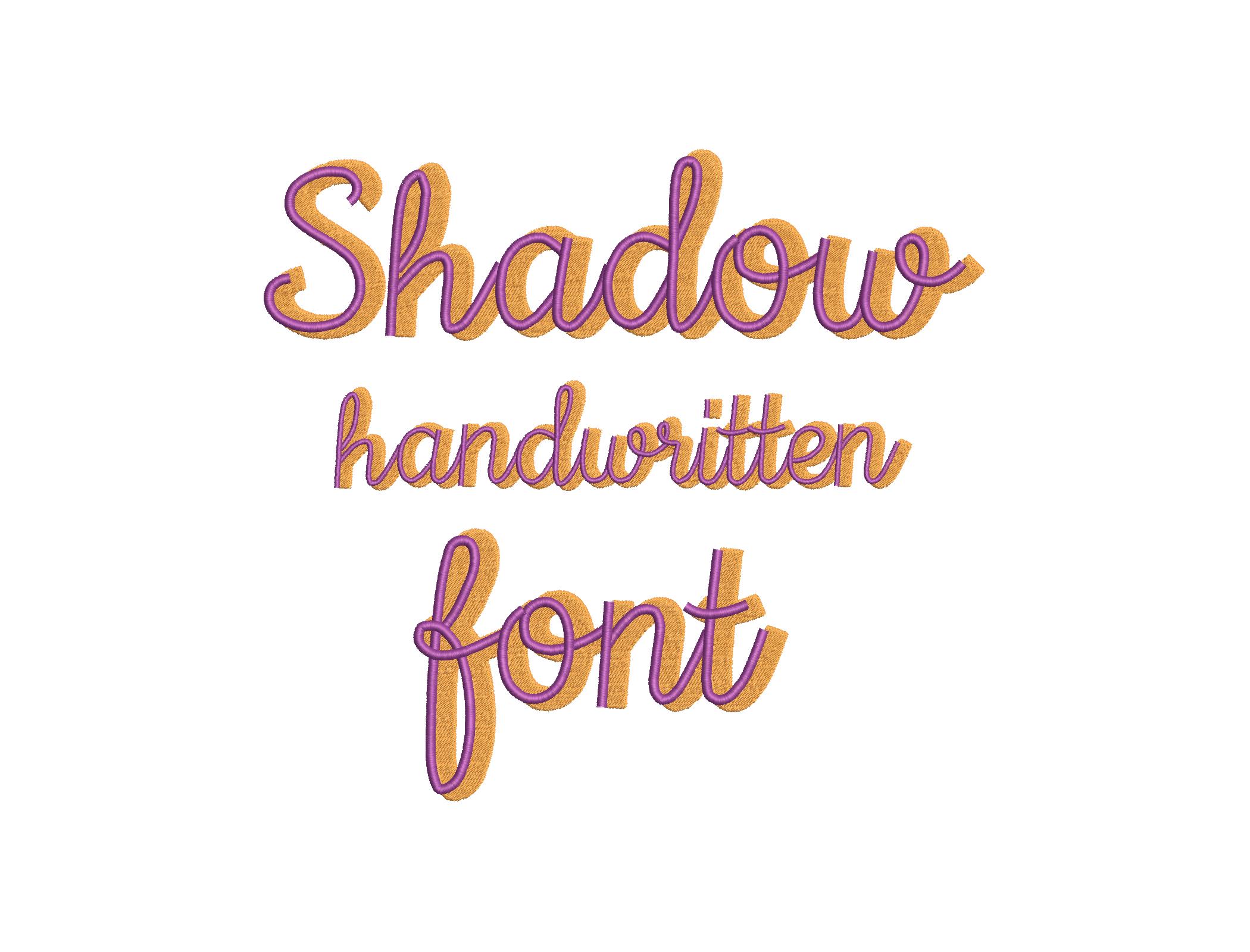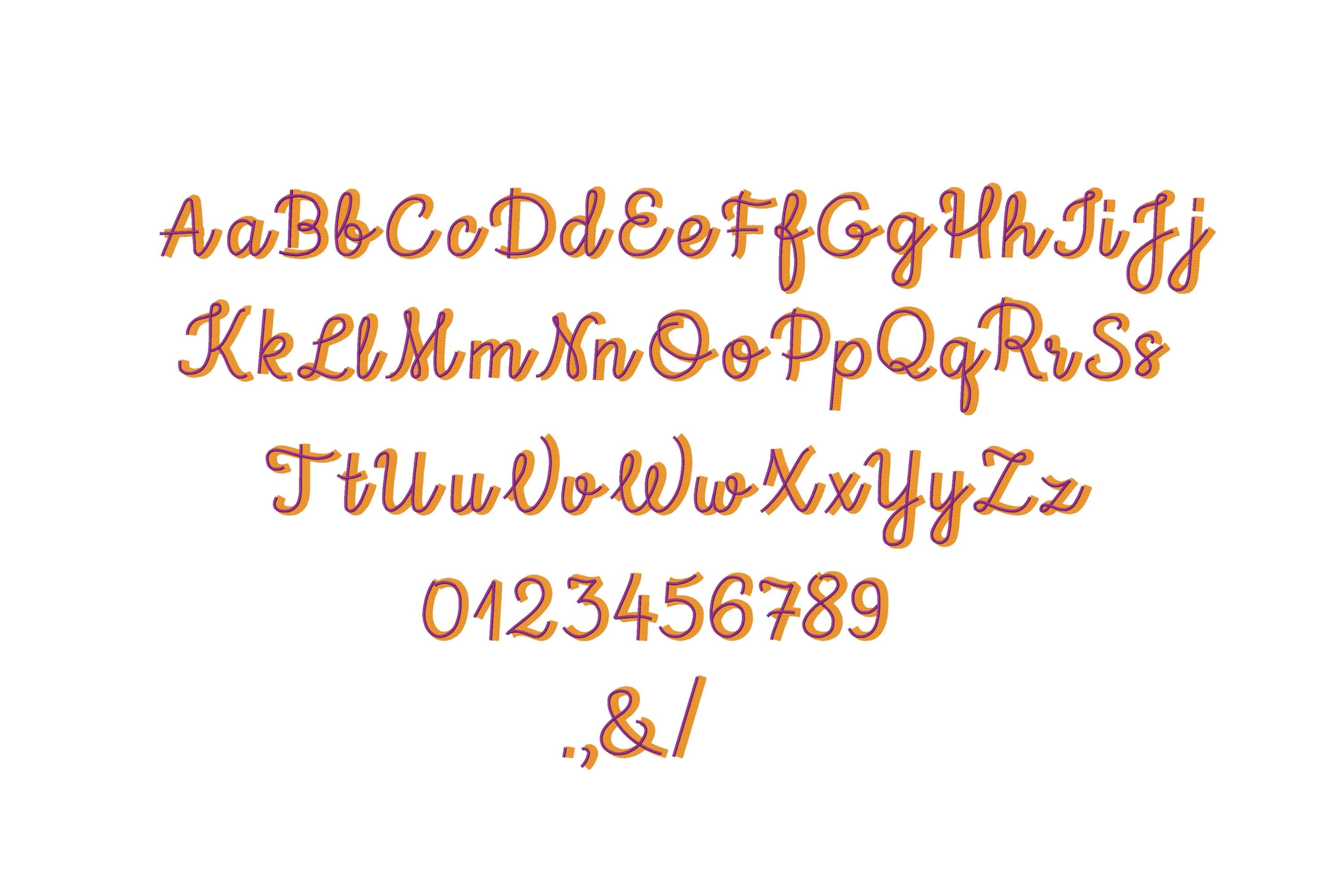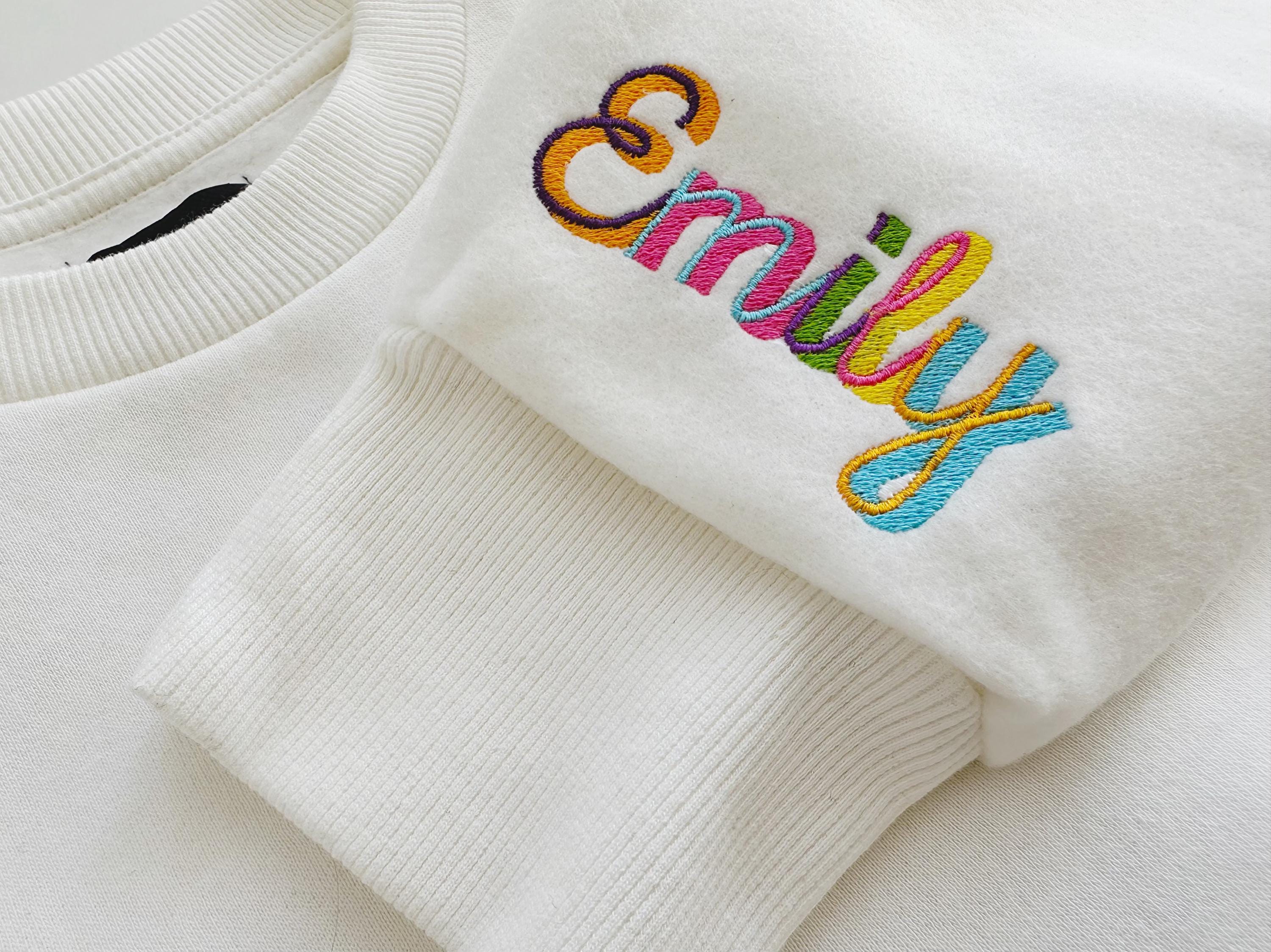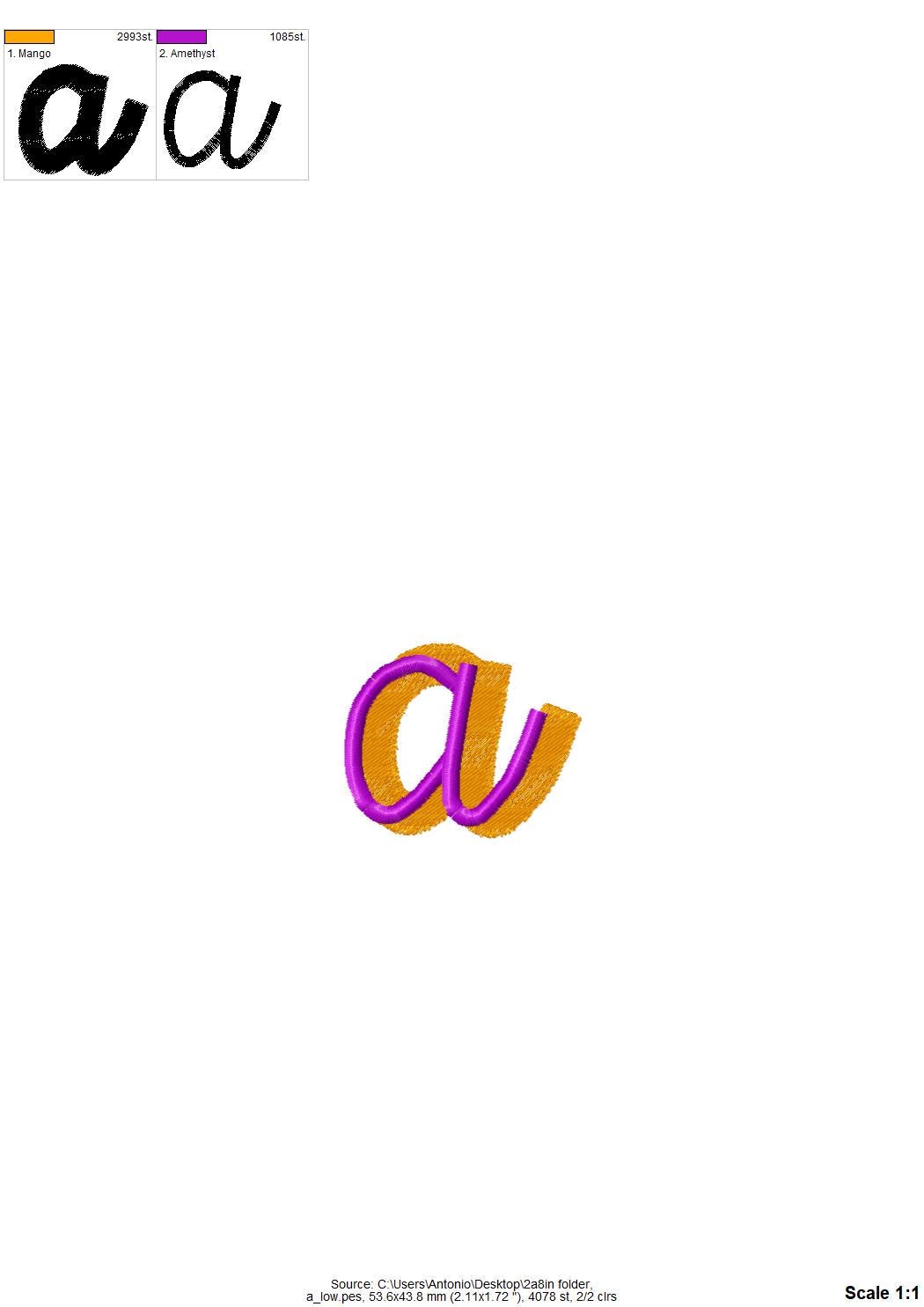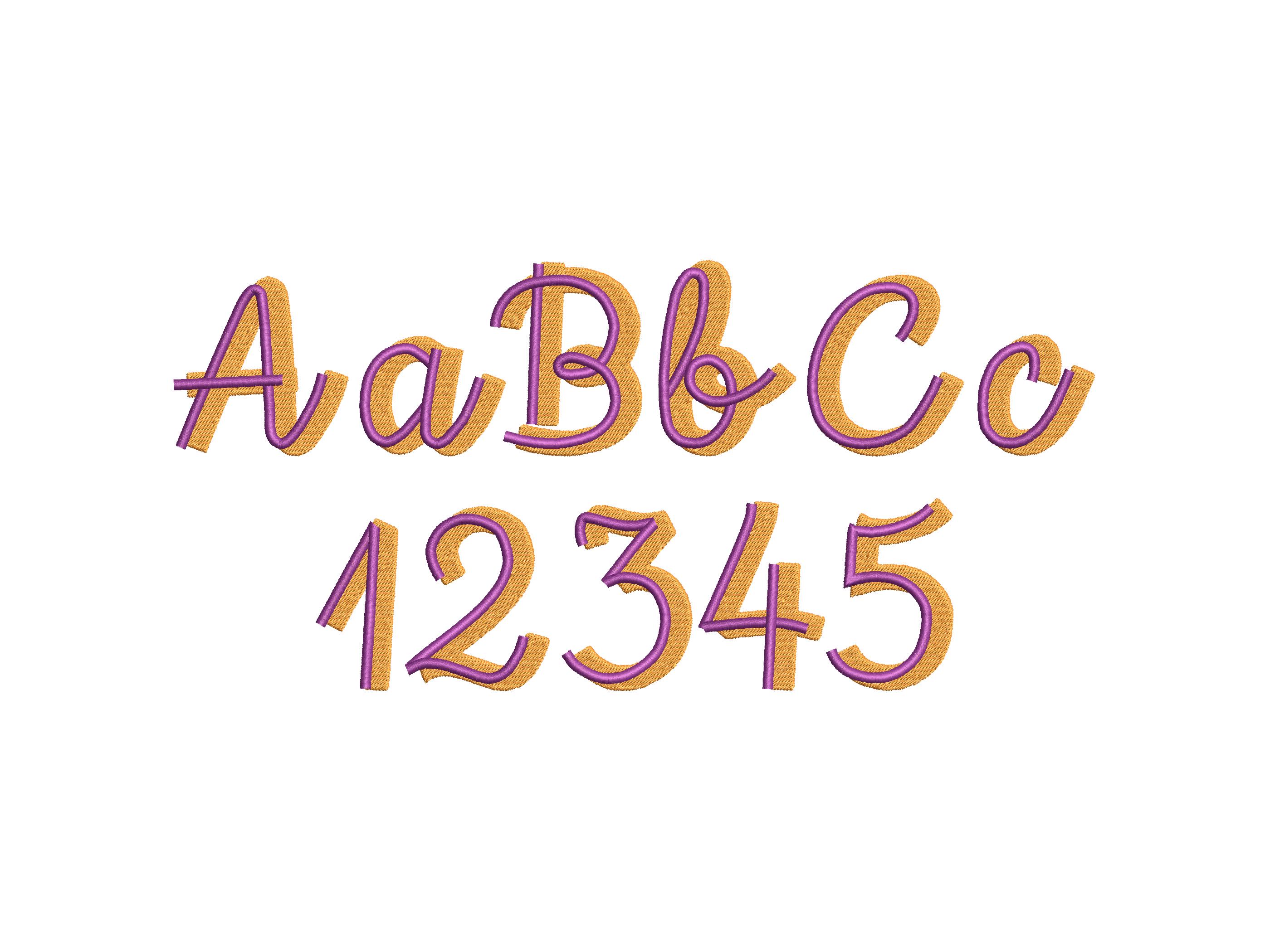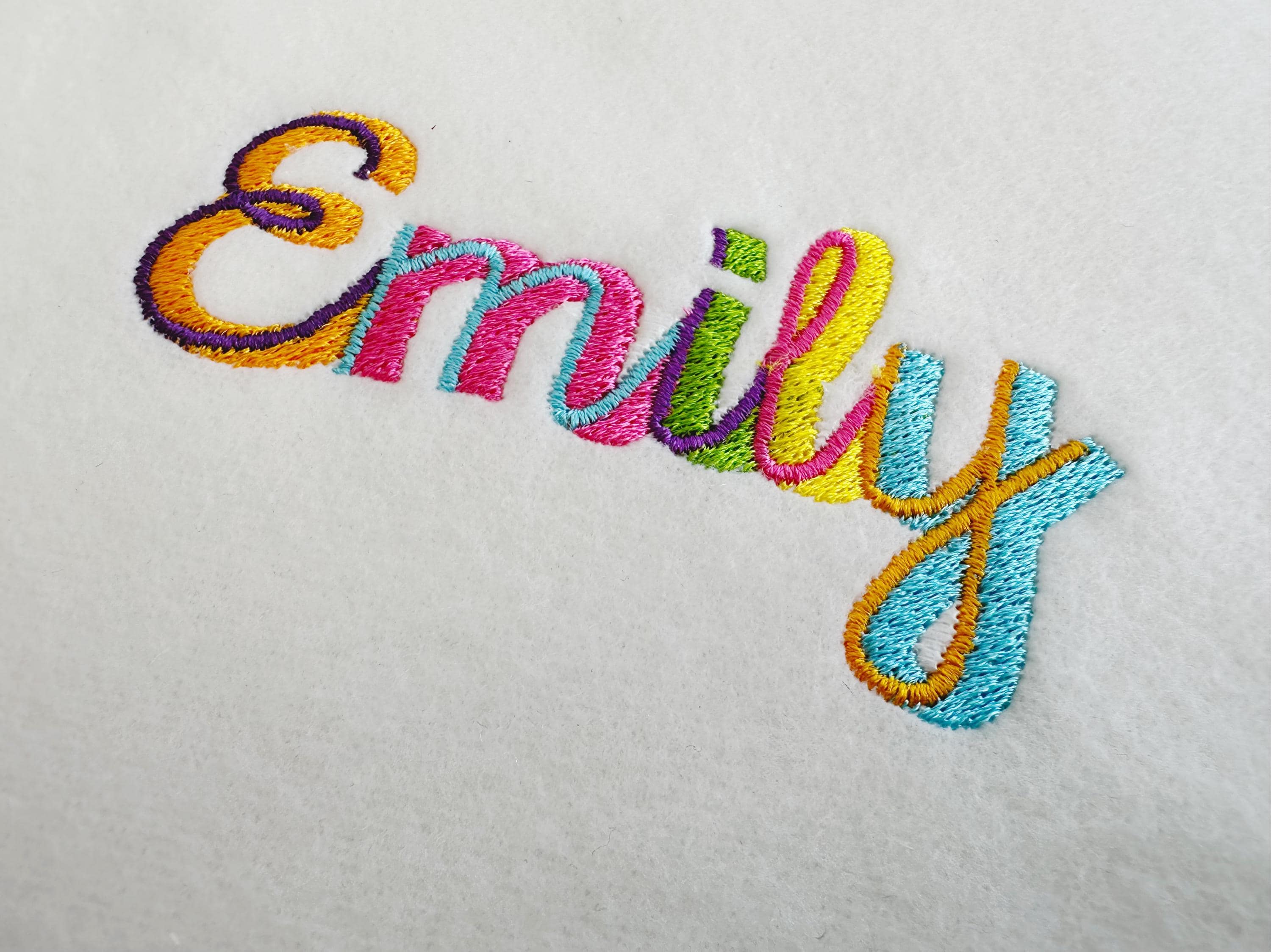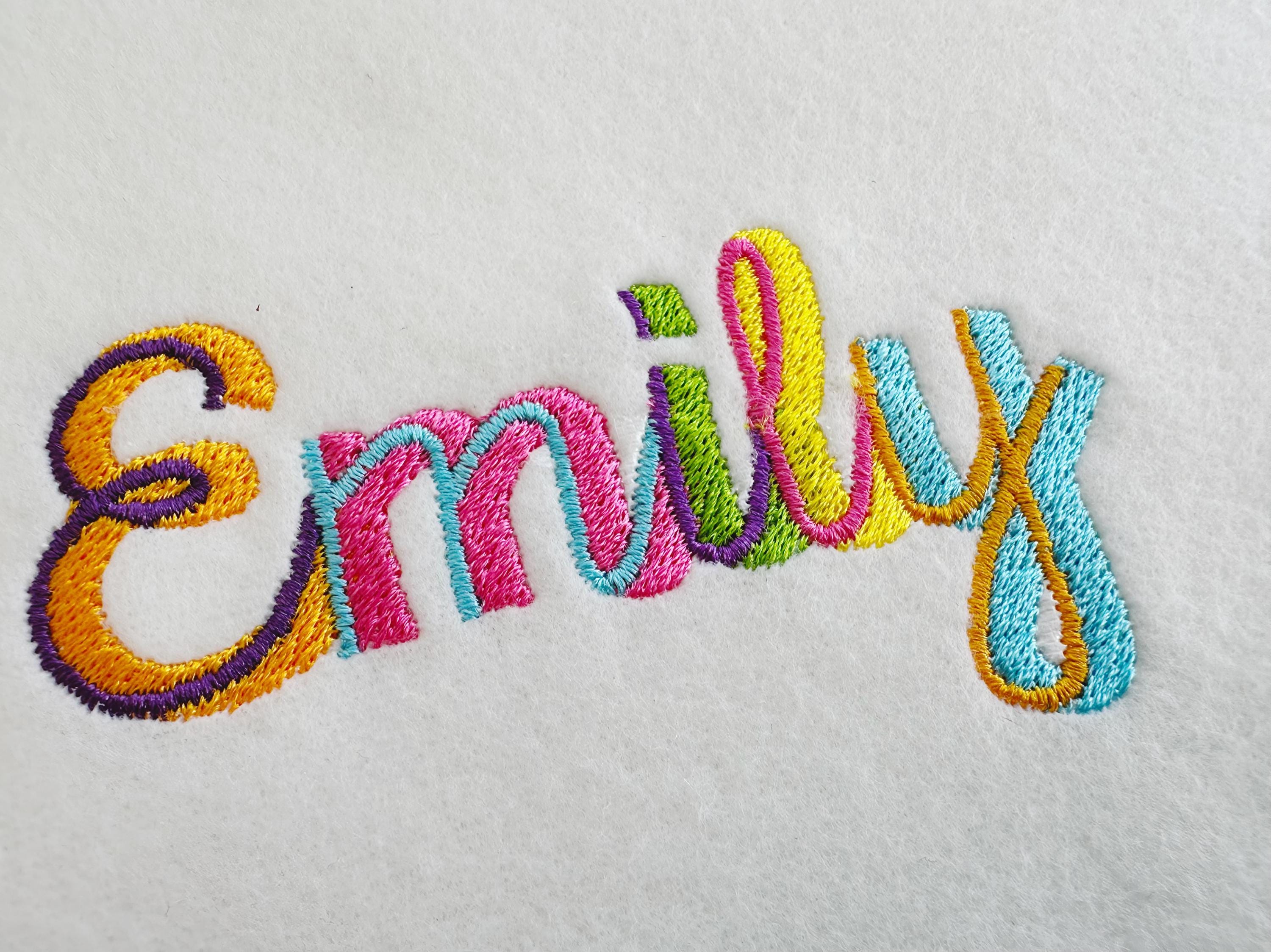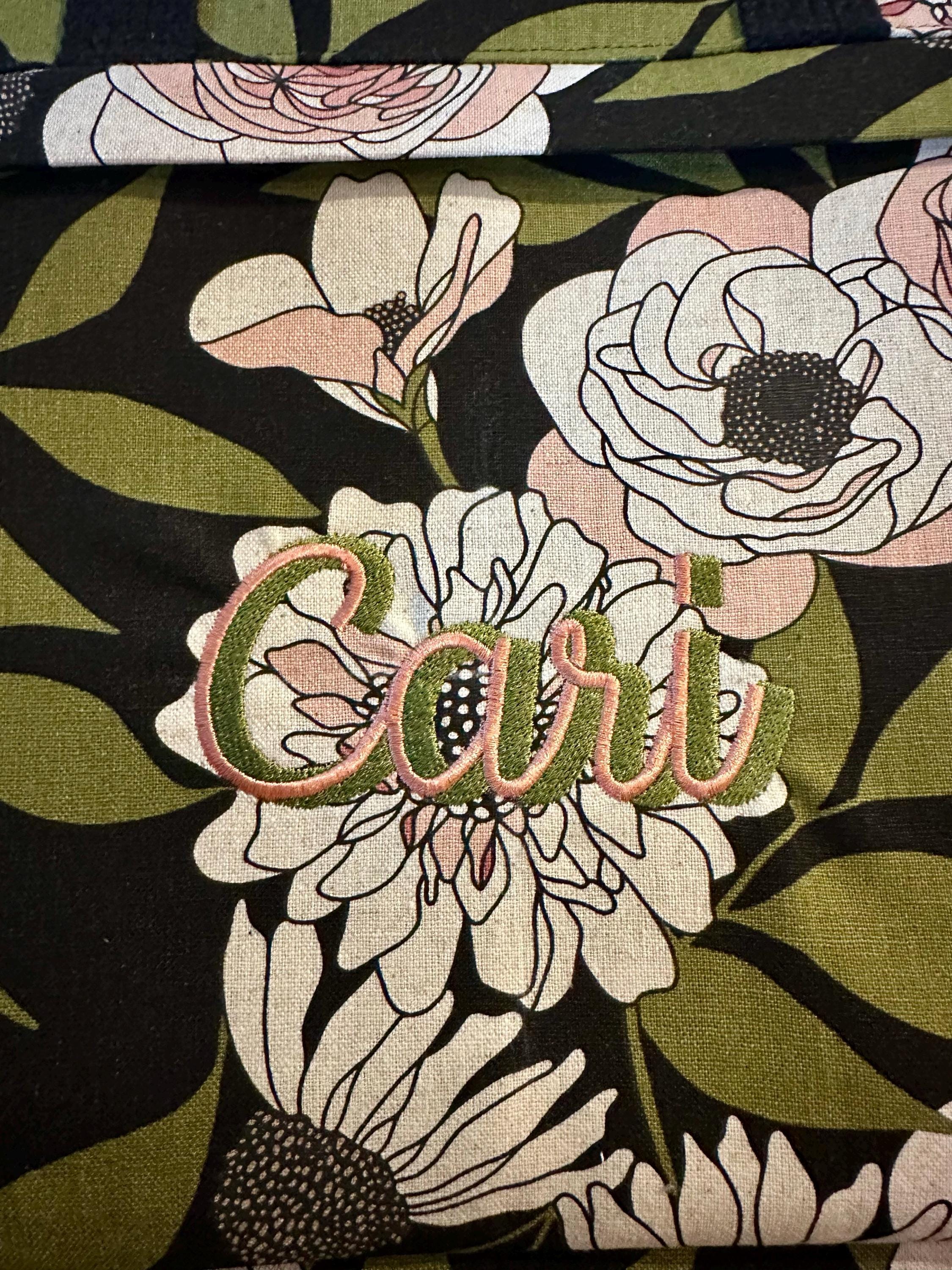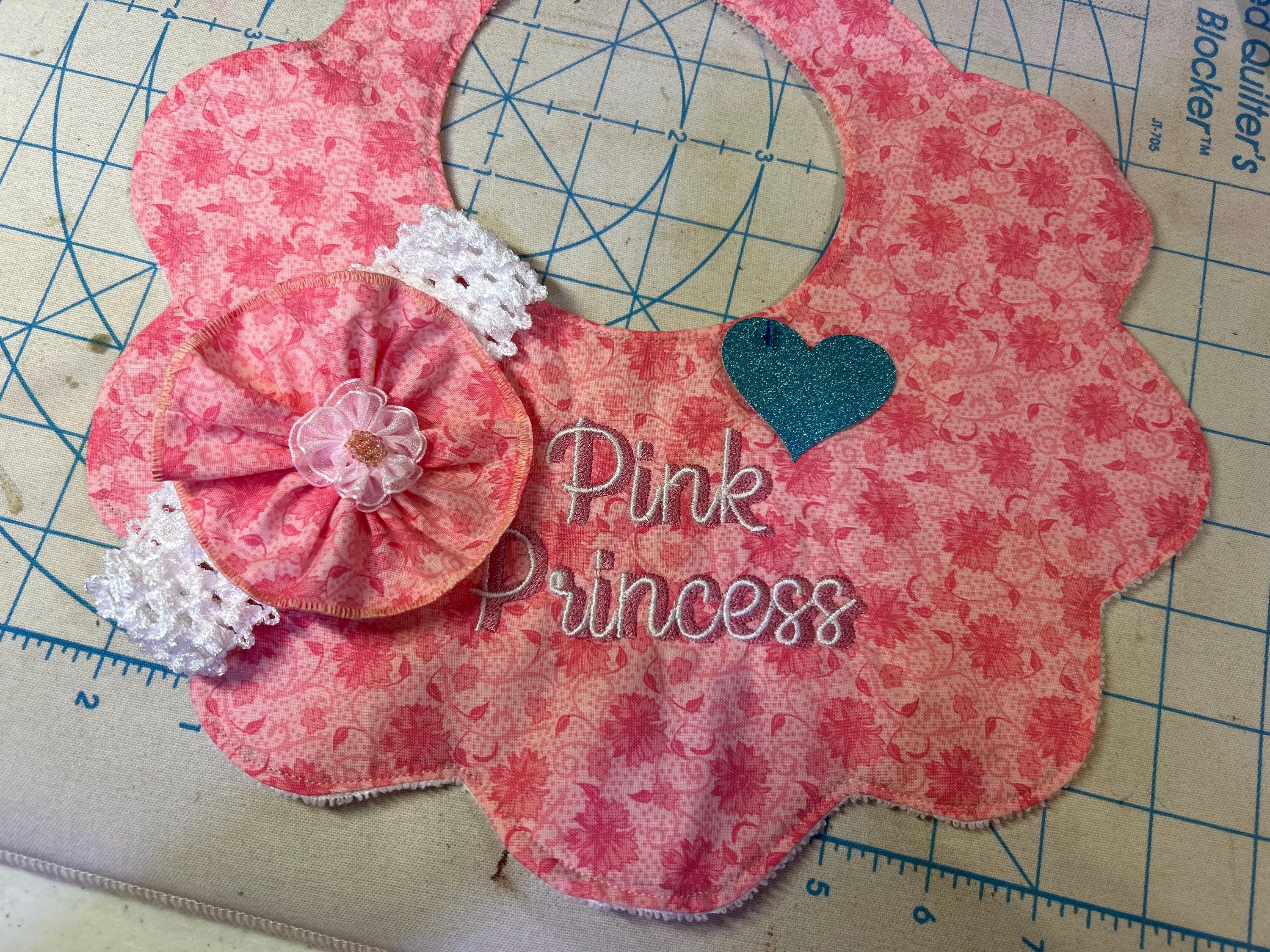
Shadow handwritten Font satin and fill stitch double 2 color alphabet letters monogram machine embroidery designs many sizes 1 up to 5 inch
Whole alphabet A-Z uppercase and lowercase letters, numbers 0-9, and punctuation.